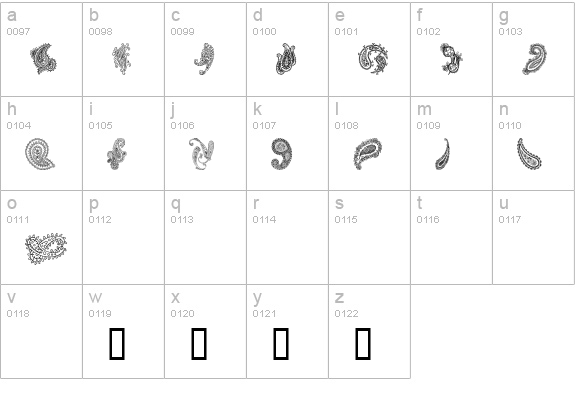
Paisley II Font Details
Introducing Paisley II, a stunning and versatile font that will elevate your design projects to new heights. With its bold yet elegant appearance, Paisley II exudes sophistication and flair, making it perfect for a wide range of creative endeavors. This exquisite font features intricate swirls and delicate curves, reminiscent of the iconic paisley pattern. Its unique and captivating design makes it ideal for adding a touch of elegance to wedding invitations, branding materials, logo designs, posters, and so much more. Paisley II is not only visually appealing but also incredibly versatile. It comes with a variety of stylistic alternates, allowing you to customize and experiment with different looks and styles. Whether you're aiming for a classic and timeless appeal or a modern and edgy vibe, Paisley II has got you covered. One of the best things about Paisley II is that it is available for free! Yes, you heard it right. This remarkable font can be freely downloaded at FontsMarket.com, where you'll find a vast collection of high-quality fonts for all your design needs. So, why wait? Grab your copy of Paisley II today and let your creativity soar.